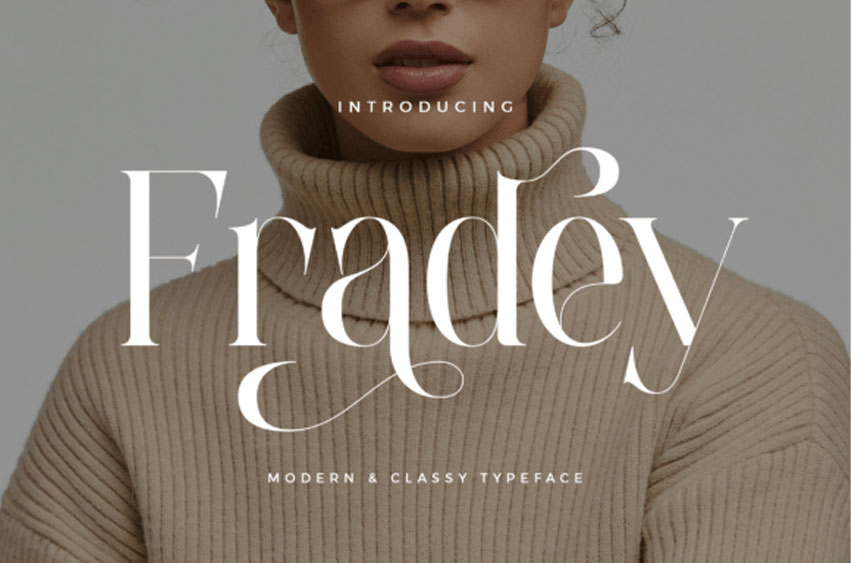
Fradey Font Stylish Ligature Typeface, inspired by the famous minimalist logo perfect for the purposes of designing templates, brochures, videos, advertising branding, logos, and more.
– Ligatures